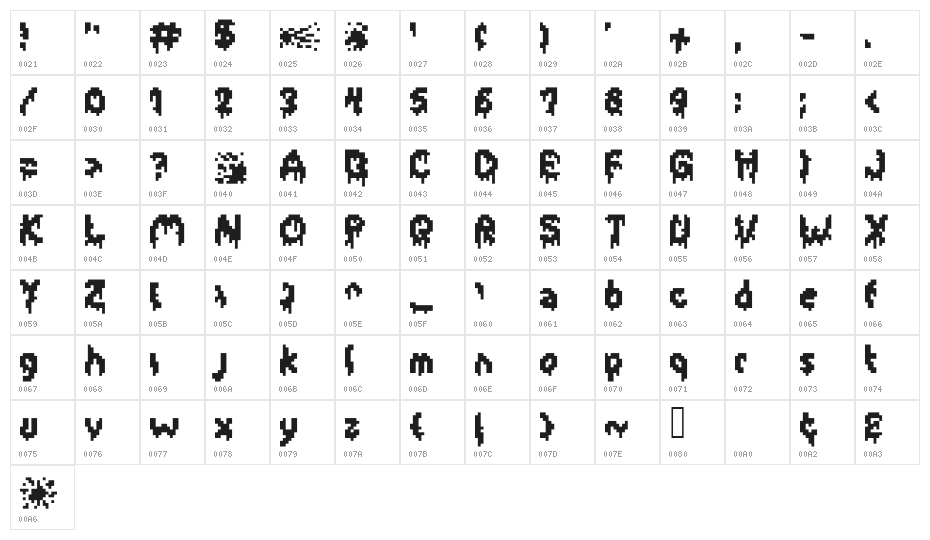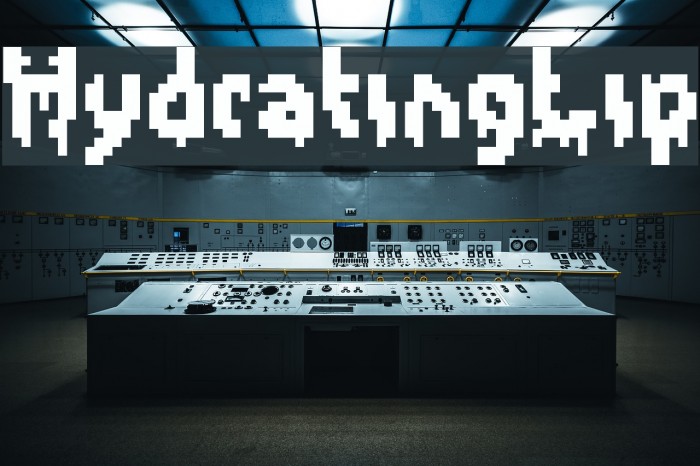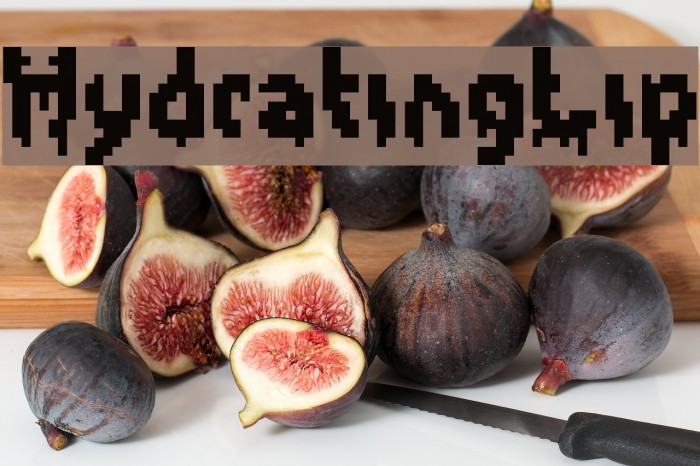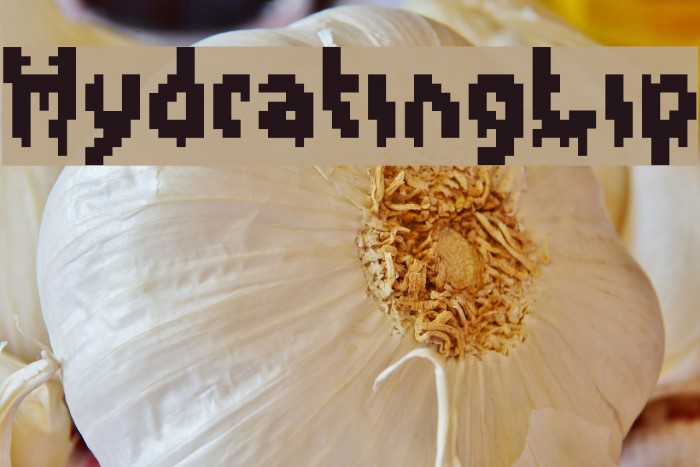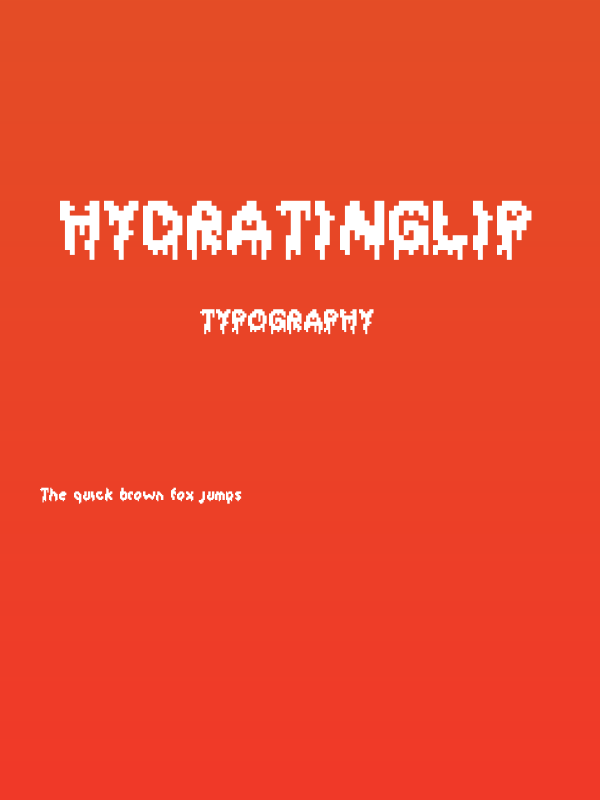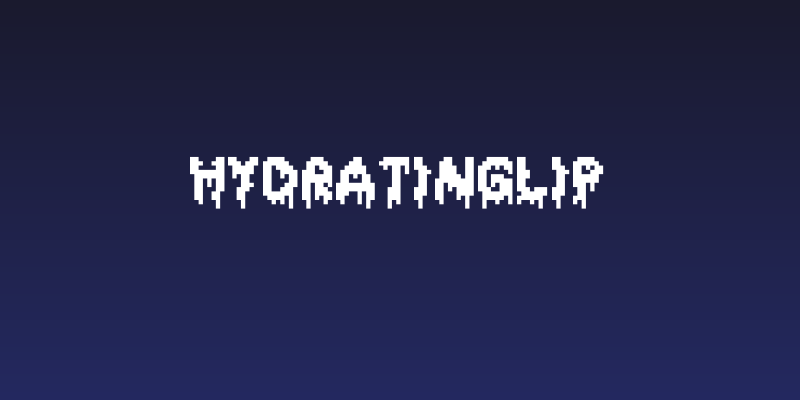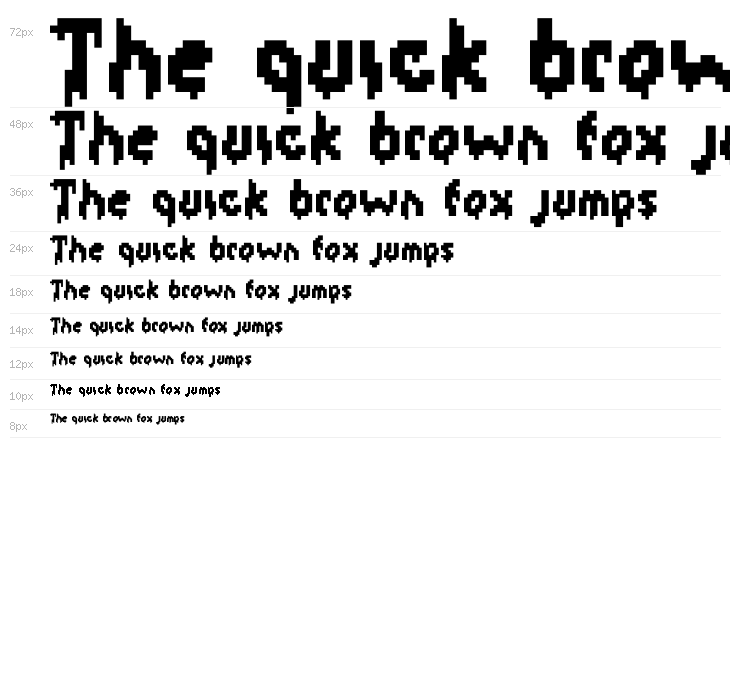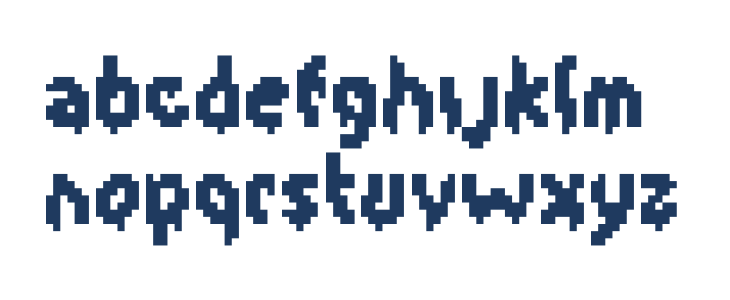
HydratingLip Font
HydratingLip Description
This font features a bold, pixelated style reminiscent of early digital or video game graphics. Each character is composed of blocky, jagged edges, creating a distinct, retro aesthetic. The uppercase and lowercase letters maintain a consistent height, contributing to a uniform appearance. Numbers and special characters follow the same pixelated design, ensuring cohesive visual impact across all text. The font's unique style makes it stand out, ideal for projects that aim to evoke nostalgia or a digital theme.
| Overall Style | Retro, Digital |
| Proposed Projects | Perfect for video game graphics, retro-themed posters, digital art, and any project requiring a nostalgic or tech-inspired look. |